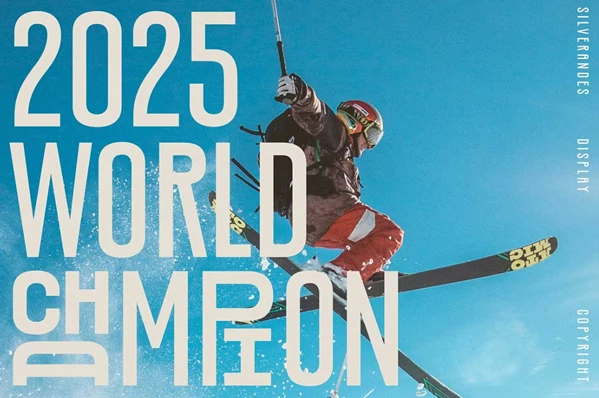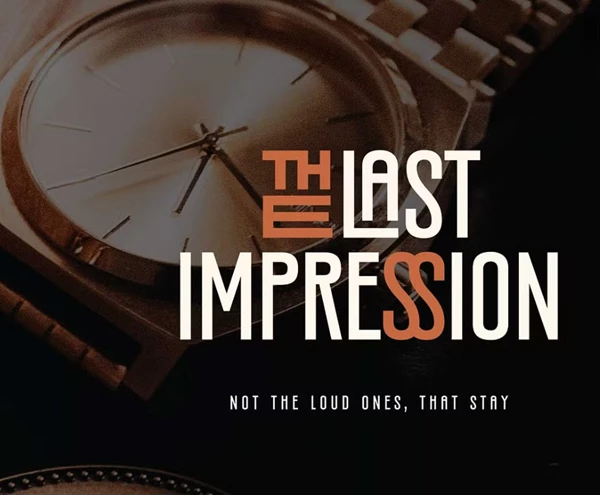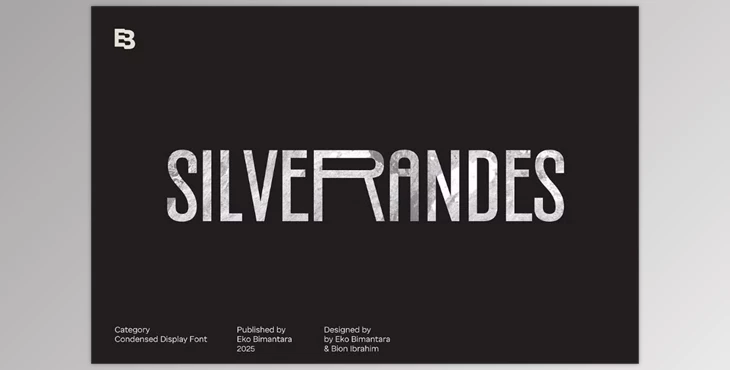
Silverandes Condensed Display Font:
The Silverandes Condensed Display Font is a sans-serif font that features modern styled characteristics yet remains classy and unique. It has a clean yet bold appearance with a condensed-style look, adding to the more contemporary, sleek appeal. The letterforms are unique, consisting of multiple stylistic alternates for the creator to adapt to various needs, as well as discretionary ligatures for a cleaner, elegant, artsy take on letter combinations. Such design elements will flow and look effortless in use for titles or any form of branding requiring a professional appeal.
This is a recommended font for any project requiring a sophisticated yet bold font that possesses class and modern-day features. It's appropriate for any design need—packaging, web graphics, branding, and editorial layouts—as it offers a clean cut, efficient approach to any form of design.